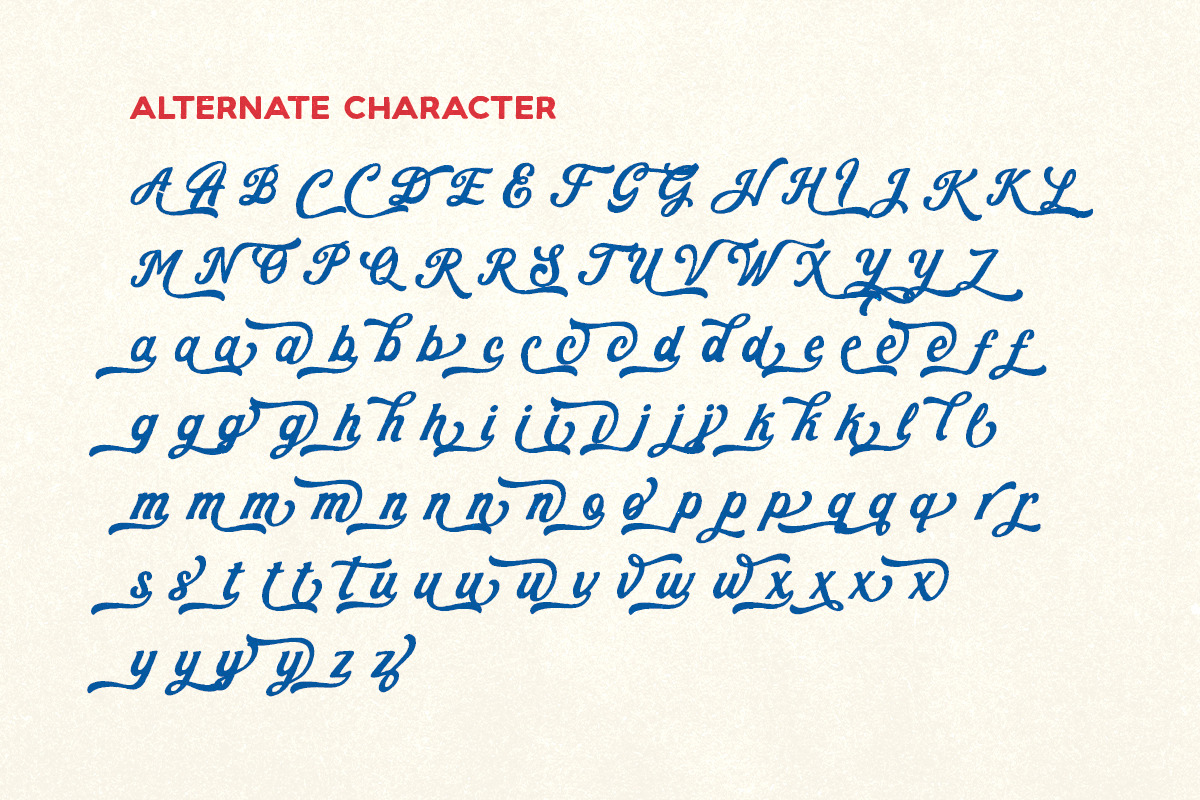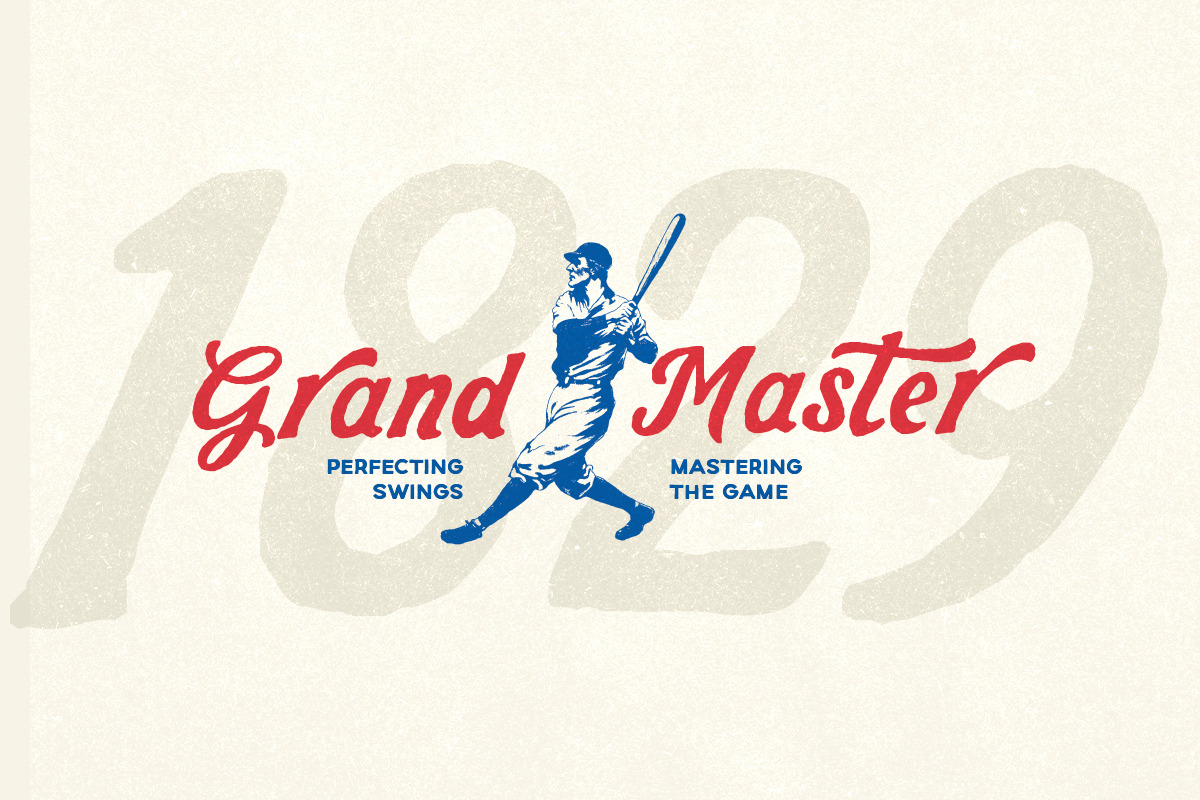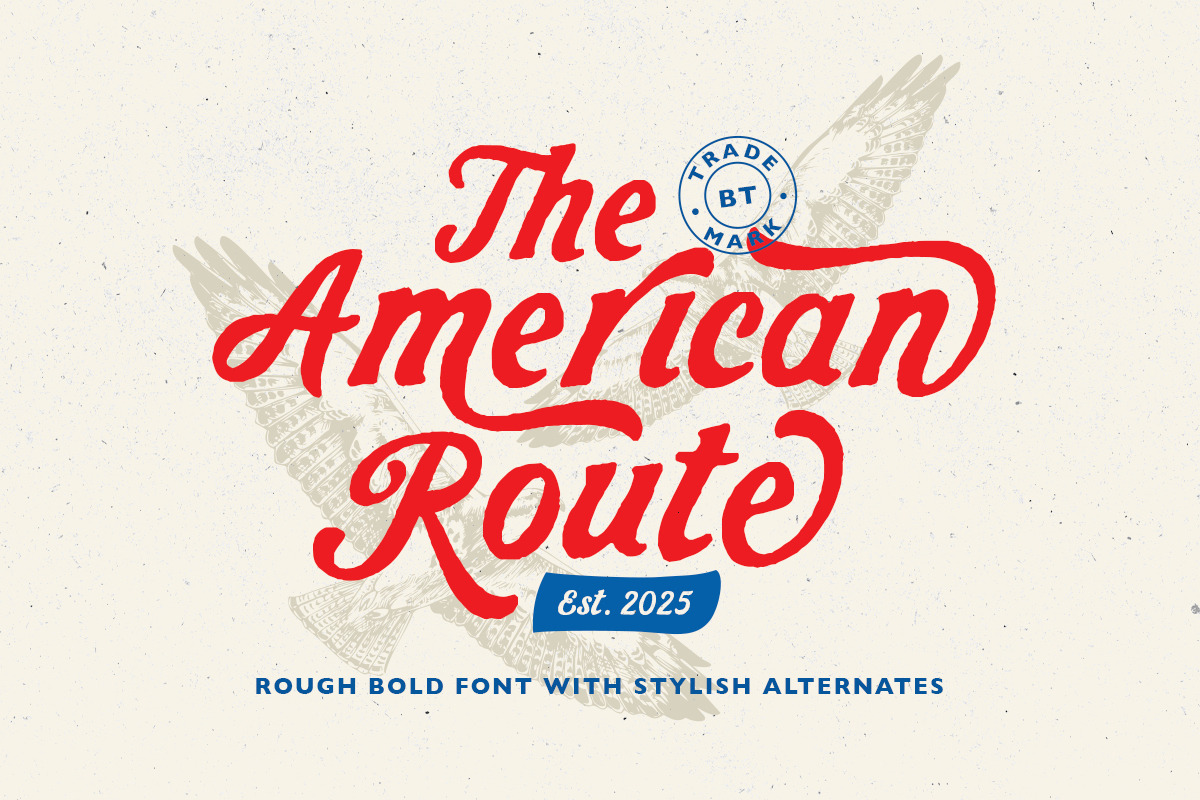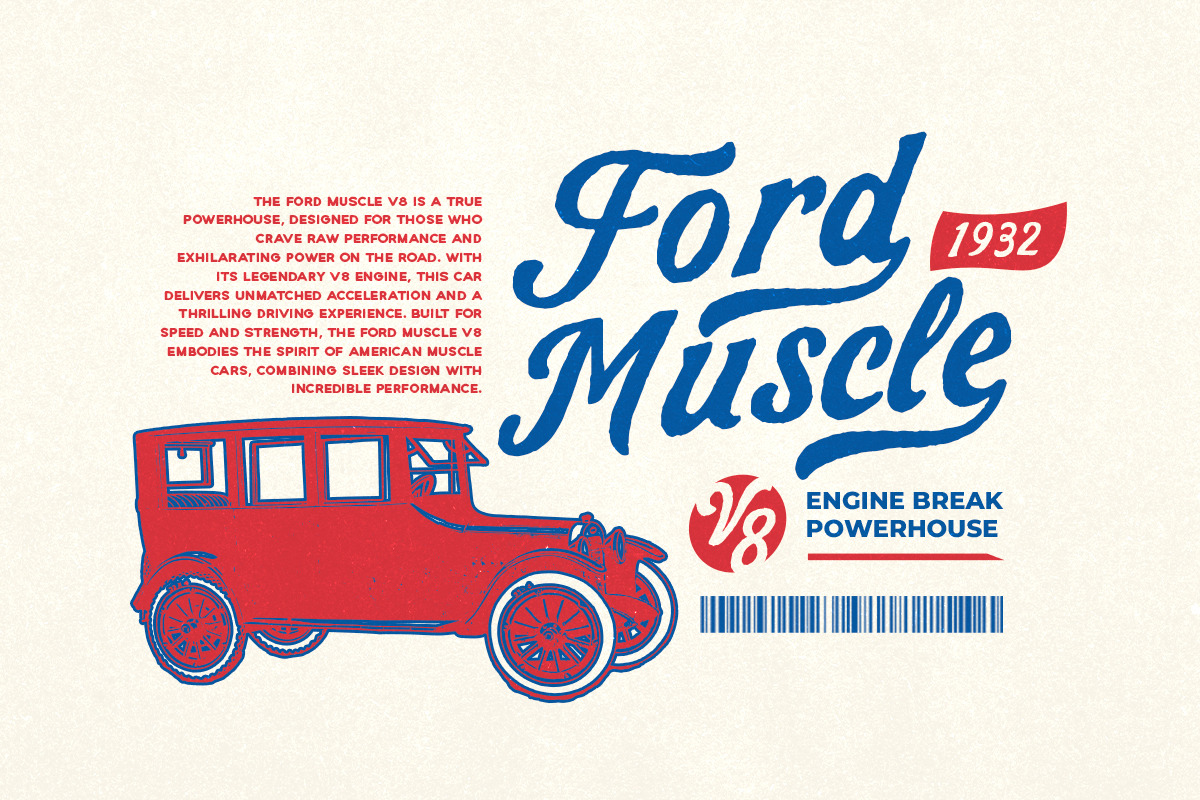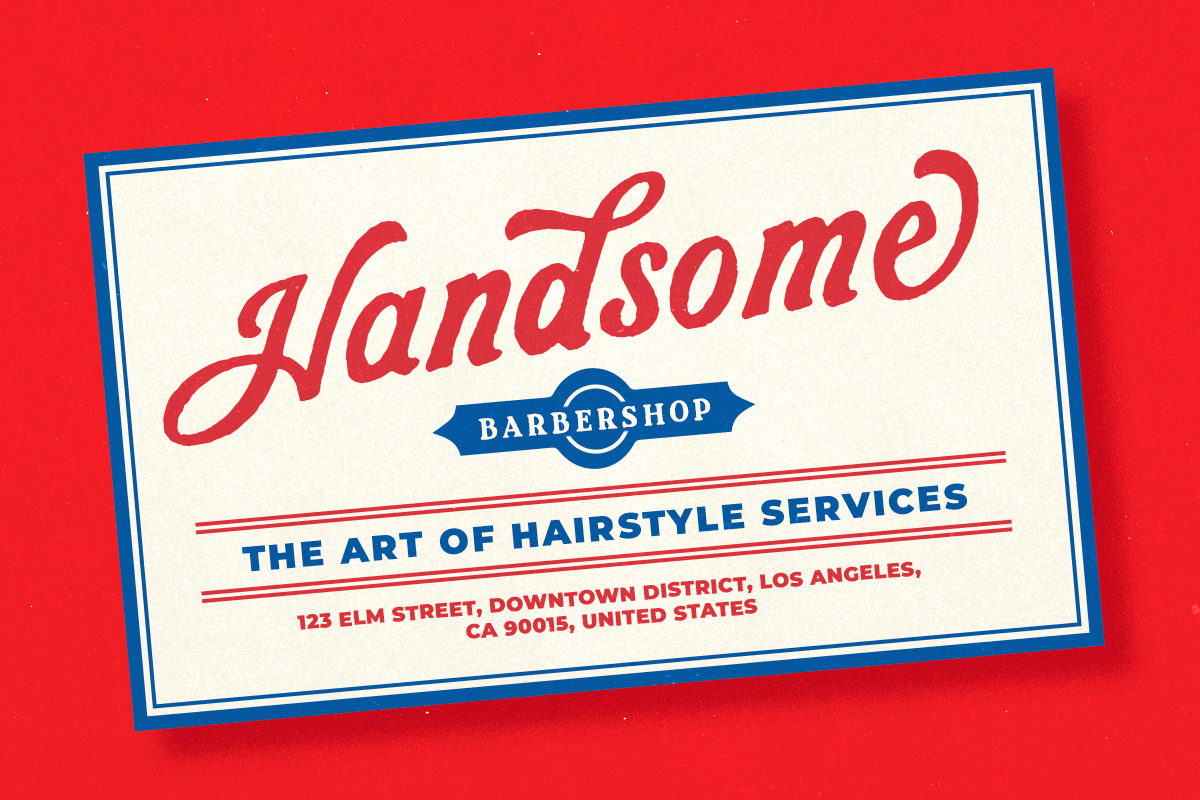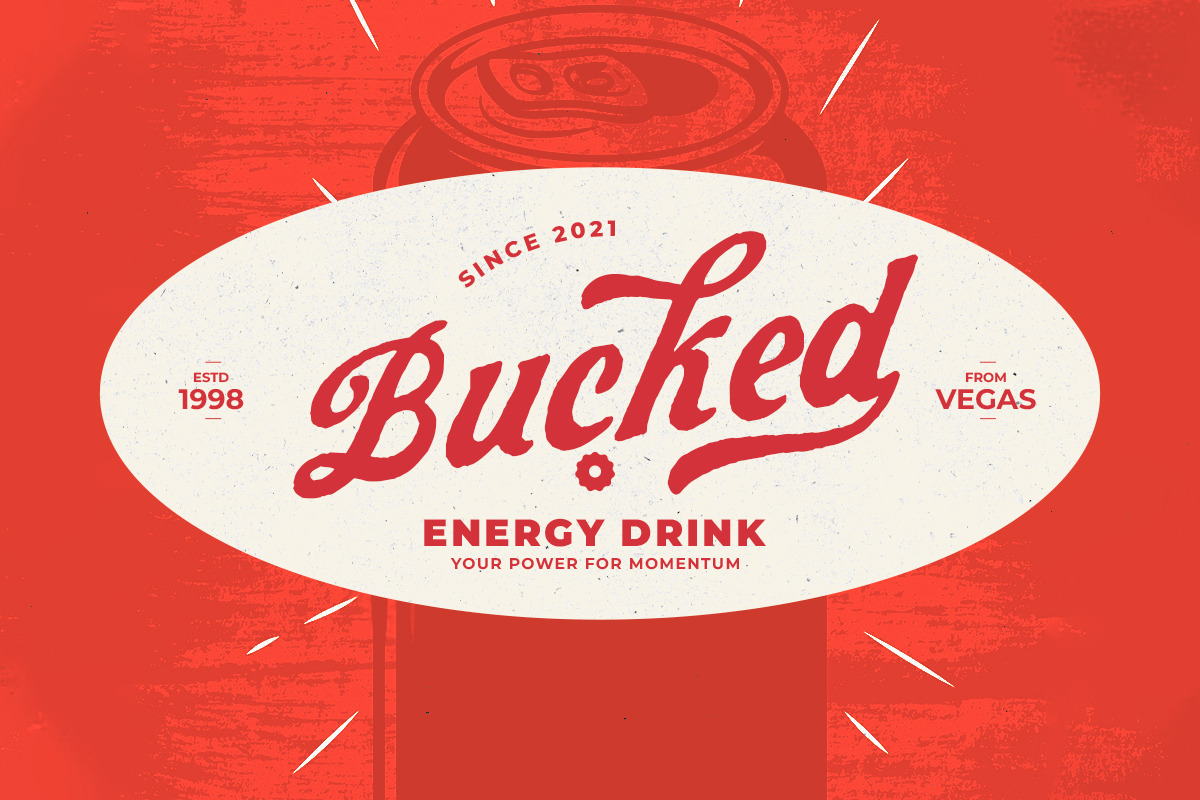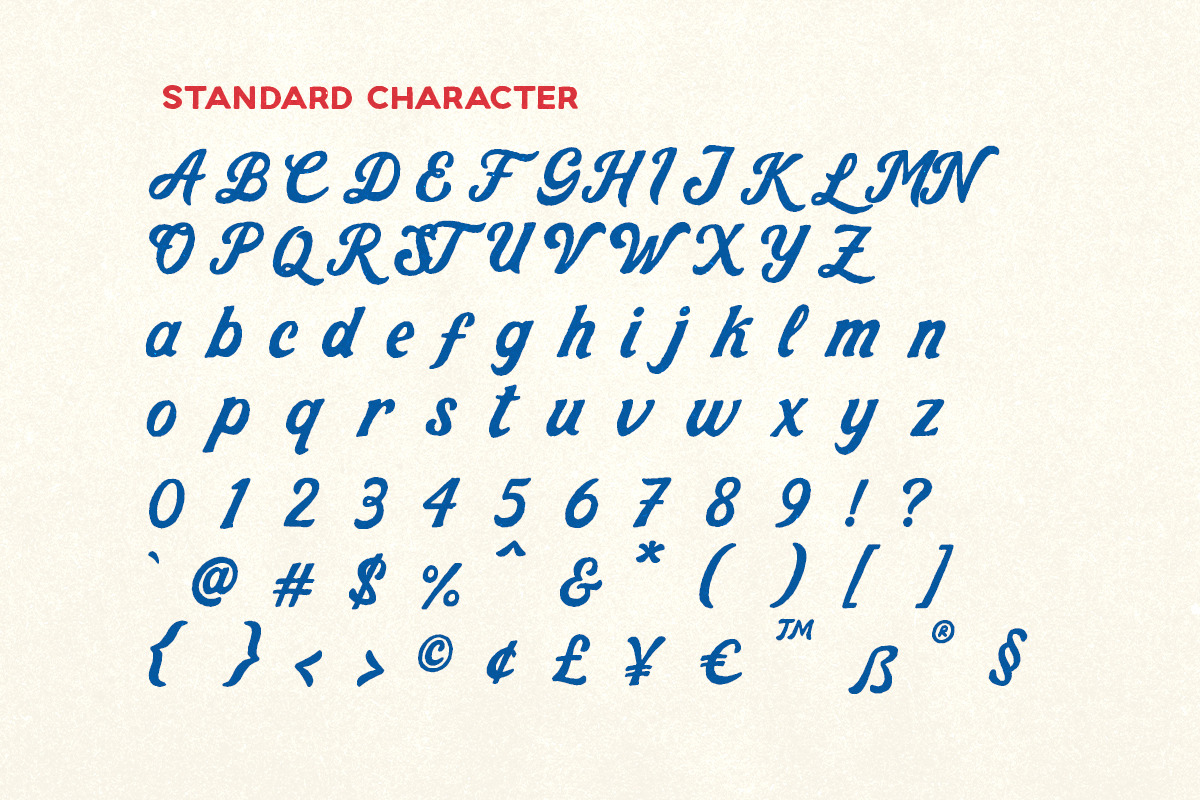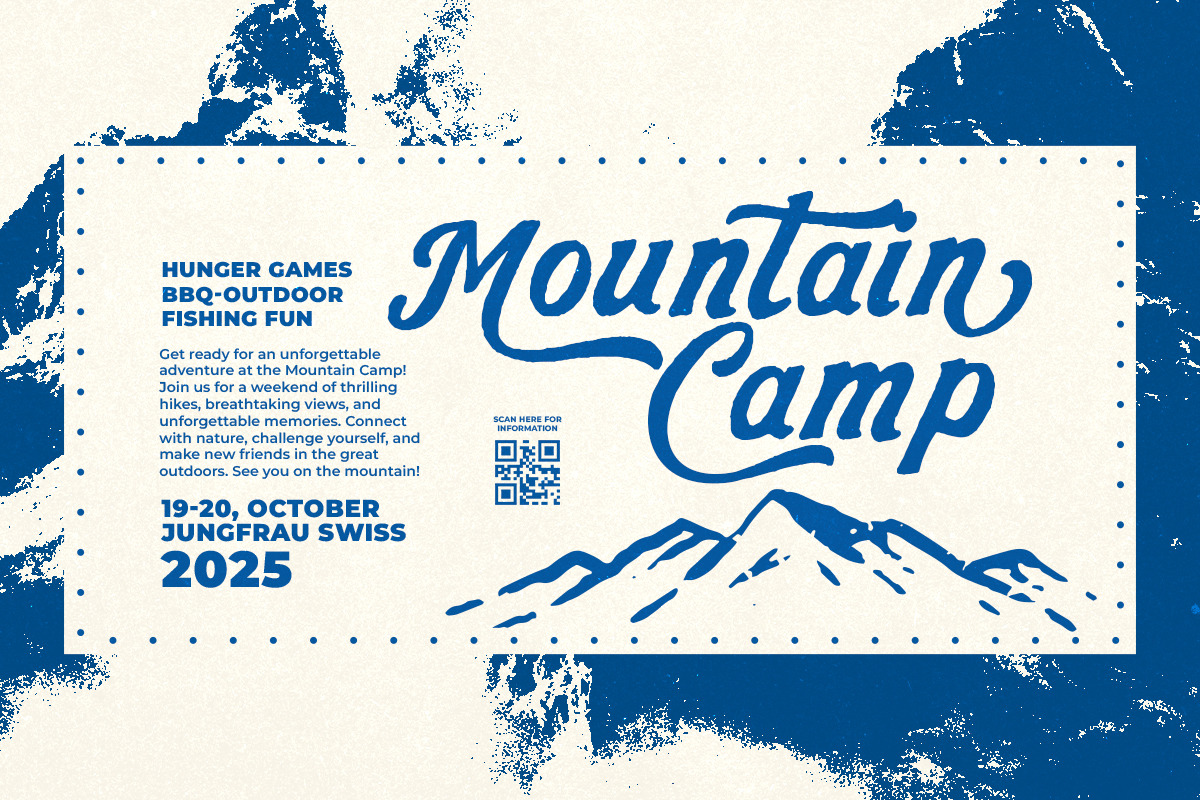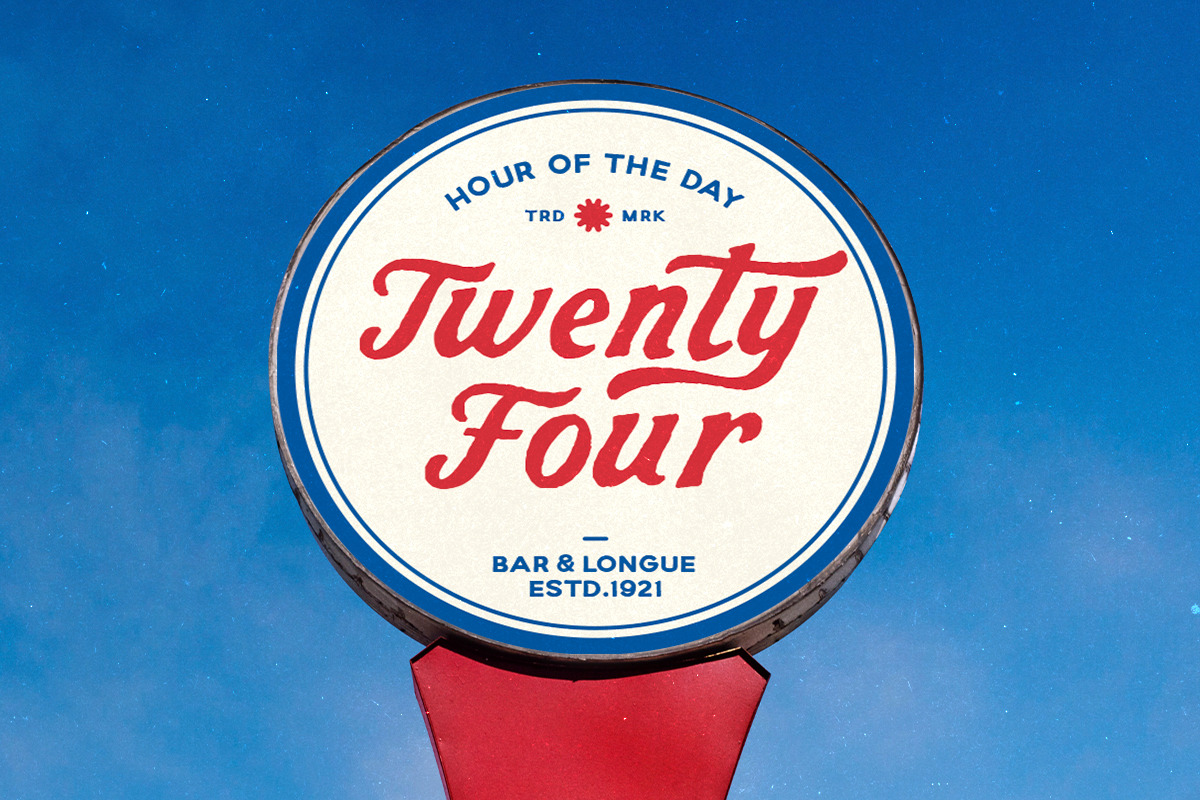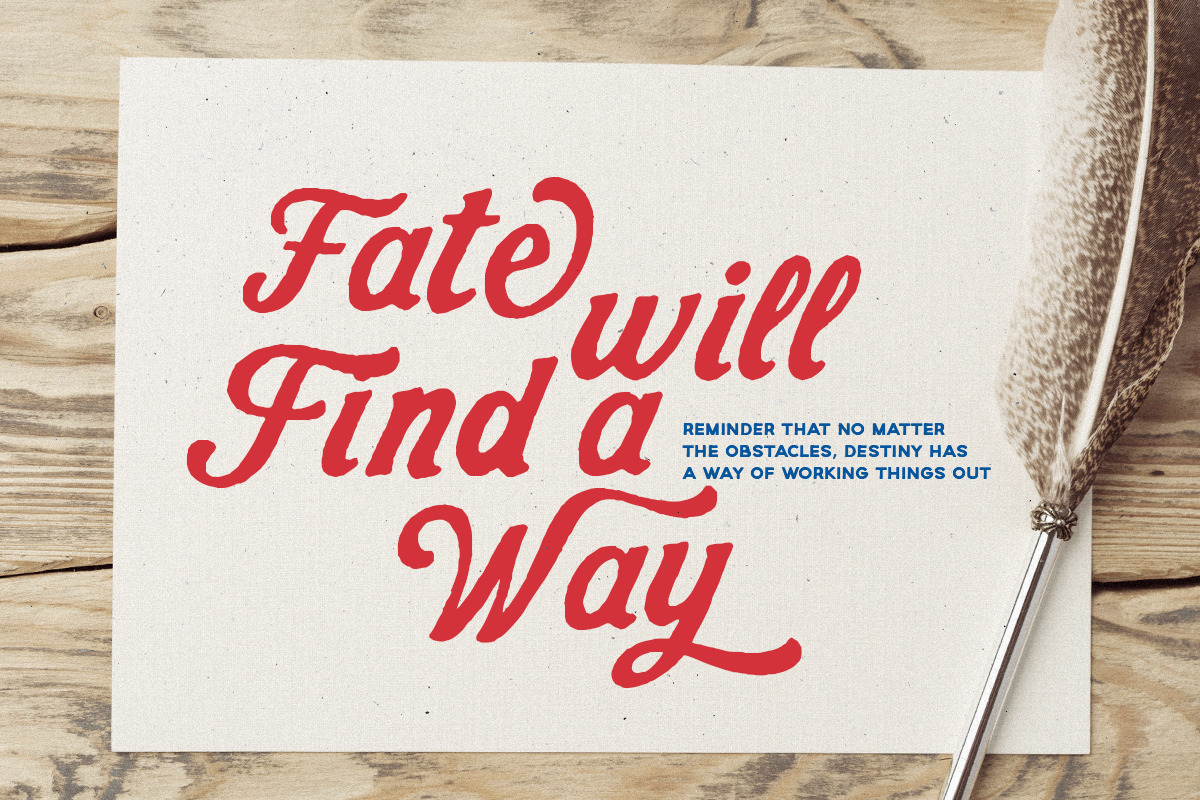
American Route - Rough Bold Font
American Route is a bold font with vintage looks and rough edge. You can use this font for any purpose such as poster, logotype, quotes, and more. With stylish alternates, you can make your design looks stunning and stand out. This font also support multi language. Let this font make your next project looks cool!